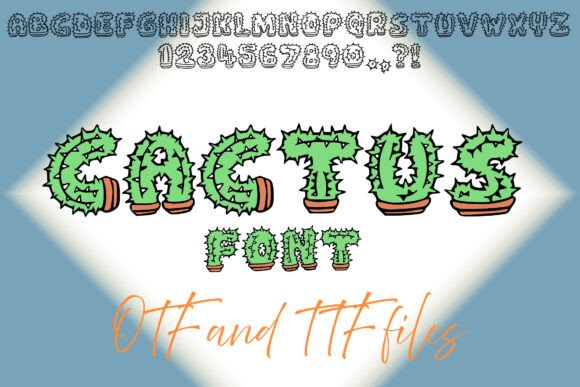
Cactus Font: Add a Touch of Desert Quirk to Your Designs
The Cactus Font is a fun and playful display typeface that embodies the spiky beauty of desert plants. This unique font features bold, cartoonish letterforms with sharp thorns and potted bases, making it perfect for Western-themed projects, kids’ designs, posters, and creative branding. If you’re looking to add a quirky, nature-inspired touch to your work, the Cactus Font is an excellent choice.
What is Cactus Font?
The Cactus Font is a display typeface designed to resemble the iconic cactus plants found in the desert. Its bold and playful design makes it an excellent choice for headlines, titles, and short text passages. The font features sharp thorns and potted bases, giving it a distinctive and eye-catching look.
Key Features of Cactus Font
- Bold and Playful Design: The Cactus Font features bold, cartoonish letterforms that are sure to grab attention.
- Sharp Thorns and Potted Bases: The font’s sharp thorns and potted bases give it a unique and quirky look.
- Western-Themed: The Cactus Font is perfect for Western-themed projects, such as posters, flyers, and brochures.
- Kids’ Designs: The font’s playful design makes it an excellent choice for kids’ designs, such as children’s books, posters, and educational materials.
- Creative Branding: The Cactus Font can add a touch of personality to your brand, making it perfect for creative branding projects.
Uses of Cactus Font
The Cactus Font is a versatile typeface that can be used in a variety of design projects. Here are some ideas:
- Posters and Flyers: Use the Cactus Font to create eye-catching posters and flyers for Western-themed events, kids’ parties, and outdoor activities.
- Kids’ Designs: The font is perfect for kids’ designs, such as children’s books, educational materials, and kids’ clothing.
- Branding and Packaging: Add a touch of personality to your brand with the Cactus Font, making it perfect for creative branding and packaging projects.
- Logos and Icons: Use the Cactus Font to create unique logos and icons for your business or project.
Benefits of Using Cactus Font
The Cactus Font offers several benefits, including:
- Unique and Eye-Catching Design: The font’s bold and playful design makes it stand out from other typefaces.
- Versatility: The Cactus Font can be used in a variety of design projects, from posters and flyers to kids’ designs and branding.
- Easy to Read: Despite its bold design, the Cactus Font is easy to read, making it perfect for short text passages.
The Cactus Font is a fun and playful display typeface that can add a touch of desert quirk to your designs. With its bold, cartoonish letterforms and sharp thorns and potted bases, this font is perfect for Western-themed projects, kids’ designs, posters, and creative branding. Whether you’re looking to create eye-catching posters, unique logos, or add a touch of personality to your brand, the Cactus Font is an excellent choice.